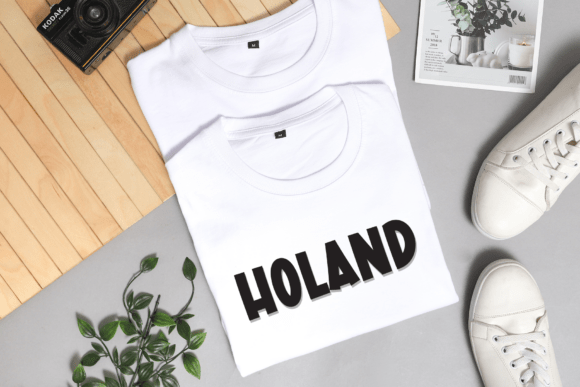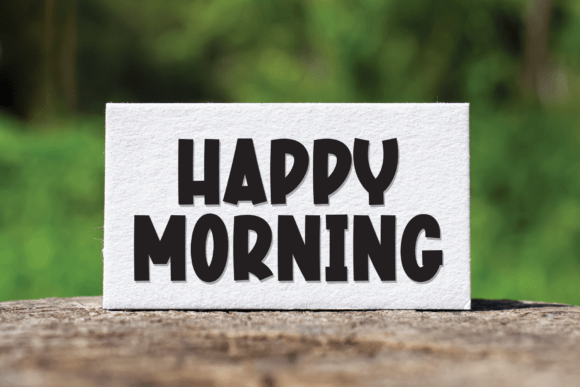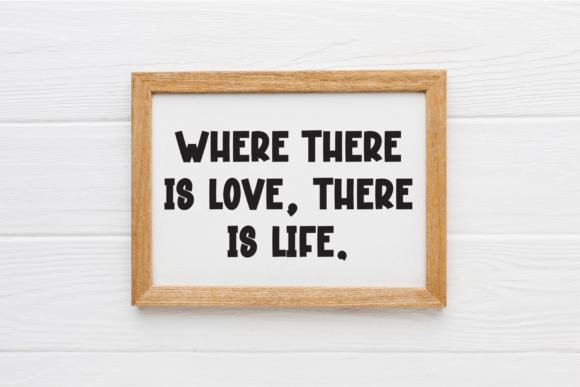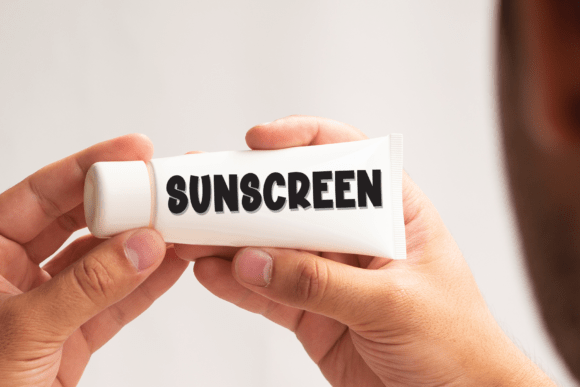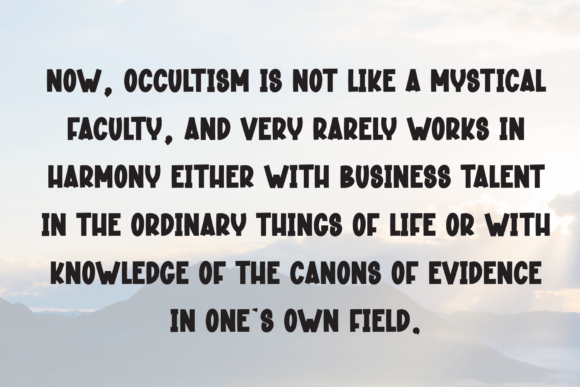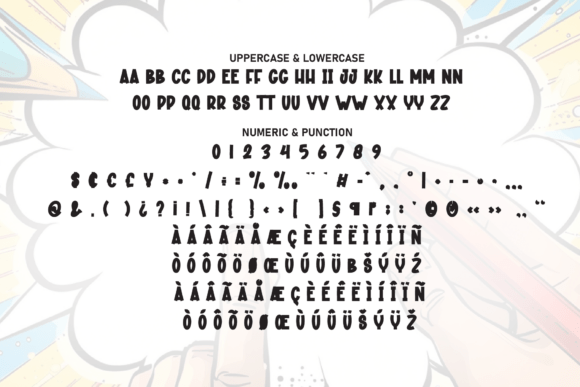
Introducing the Comic Writing Font: A Delightful Handwritten Display Font
Are you tired of using the same old fonts for your designs? Do you want to add a touch of whimsy and playfulness to your creations? Look no further than the Comic Writing Font, a charming handwritten display font that is sure to bring a smile to your face. With its delightful and amicable curves and lines, this font is the perfect choice for designers and crafters looking to add a lighthearted touch to their work.
The Epitome of Cute and Fun
The Comic Writing Font is the epitome of the words “cute” and “fun”. Its playful and elegant design makes it perfect for crafting delightful wedding invitations, heartwarming cards, and any other design seeking that lighthearted touch. Whether you’re a designer, crafter, or DIY enthusiast, this font is sure to inspire your creativity and bring a dash of joy to your work.
Perfect for a Variety of Designs
The Comic Writing Font is versatile and can be used for a variety of designs, including:
- Cards and gift tags
- Marketing materials and advertisements
Effortlessly Marries Creativity with Whimsy
The Comic Writing Font effortlessly marries creativity with whimsy, making it the perfect choice for designers and crafters who want to add a touch of personality to their work. With its playful and elegant design, this font is sure to inspire your creativity and bring a fresh perspective to your designs.
Immerse Your Designs in Playful Elegance
With the Comic Writing Font, you can immerse your designs in a world of playful elegance and artistic flair. This font is perfect for designers and crafters who want to add a touch of sophistication and whimsy to their work. Whether you’re creating a wedding invitation or a social media graphic, this font is sure to make your design stand out.
Elevate Your Creations with a Dash of Joy
The Comic Writing Font is the perfect way to elevate your creations and infuse them with a dash of joy and a sprinkle of fun. With its delightful and amicable design, this font is sure to bring a smile to your face and inspire your creativity. Whether you’re a designer, crafter, or DIY enthusiast, this font is sure to become a favorite in your collection.
Step into a World of Creative Possibilities
With the Comic Writing Font, you can step into a world of creative possibilities and bring your designs to life. This font is perfect for designers and crafters who want to push the boundaries of their creativity and try something new. Whether you’re creating a wedding invitation or a social media graphic, this font is sure to inspire your creativity and bring a fresh perspective to your designs.
Key Features of the Comic Writing Font
- Delightful and amicable handwritten display font
- Perfect for wedding invitations, cards, and other designs seeking a lighthearted touch
- Effortlessly marries creativity with whimsy
- Playful and elegant design
- Versatile and can be used for a variety of designs
In conclusion, the Comic Writing Font is a delightful and amicable handwritten display font that is sure to bring a touch of whimsy and playfulness to your designs. With its playful and elegant design, this font is perfect for designers and crafters looking to add a lighthearted touch to their work. Whether you’re creating a wedding invitation or a social media graphic, this font is sure to inspire your creativity and bring a fresh perspective to your designs. So why wait? Try the Comic Writing Font today and step into a world of creative possibilities!